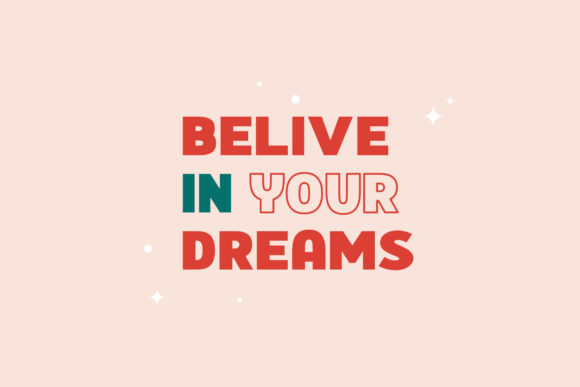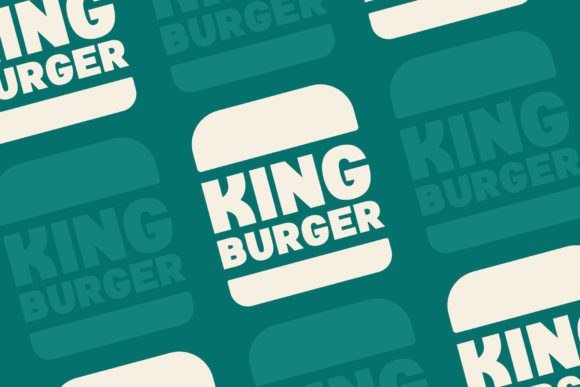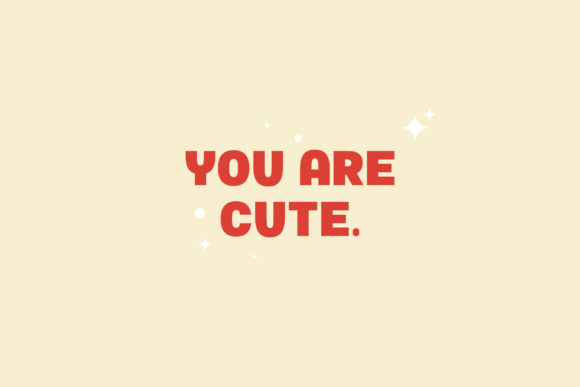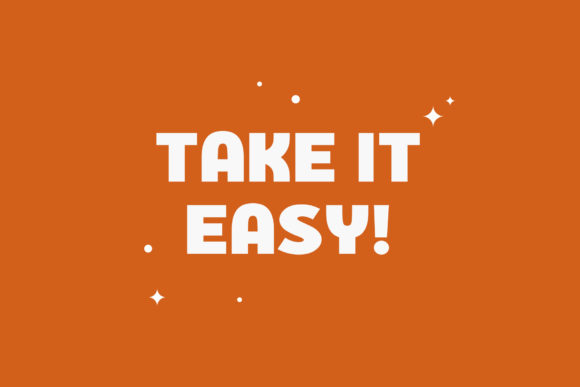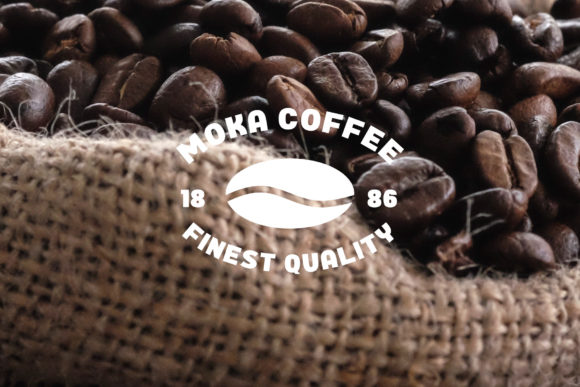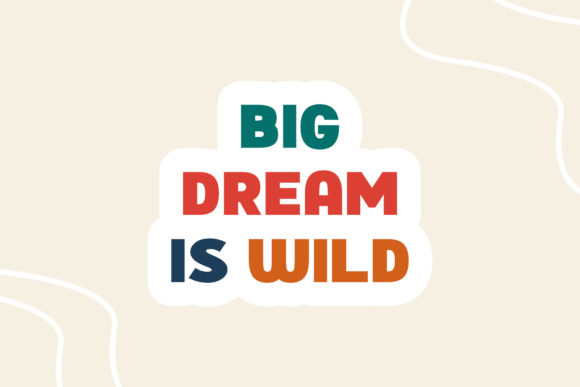
Introducing Grey Bear Font: The Ultimate Display Font for Stunning Designs
Are you tired of using the same old fonts for your designs? Look no further! Grey Bear Font is here to revolutionize your typography game. This thick lettered display font is perfect for creating eye-catching posters, flyers, and prints that will leave a lasting impression. In this article, we’ll dive into the world of Grey Bear Font and explore its endless possibilities for designers and crafters.
What is Grey Bear Font?
Grey Bear Font is a bold and sturdy display font that’s designed to make a statement. Its thick letters and clean lines make it perfect for headlines, titles, and short phrases. This font is ideal for designers who want to add a touch of ruggedness and sophistication to their designs. Whether you’re creating a poster, flyer, or print, Grey Bear Font is sure to turn heads.
Key Features of Grey Bear Font
- Thick lettered design: Grey Bear Font features thick letters that are perfect for creating bold and eye-catching designs.
- Clean lines: The font’s clean lines ensure that your designs look crisp and professional.
- Display font: Grey Bear Font is designed specifically for display purposes, making it perfect for headlines, titles, and short phrases.
- Versatile: This font can be used for a wide range of designs, from posters and flyers to prints and more.
Why Use Grey Bear Font?
So, why should you use Grey Bear Font for your designs? Here are just a few reasons:
- Add a touch of sophistication: Grey Bear Font adds a touch of ruggedness and sophistication to your designs, making them stand out from the crowd.
- Perfect for bold designs: If you want to create bold and eye-catching designs, Grey Bear Font is the perfect choice.
- Easy to read: Despite its thick letters, Grey Bear Font is easy to read, making it perfect for designs that require a clear message.
- Endless possibilities: With Grey Bear Font, the possibilities are endless. Use it for posters, flyers, prints, and more to create stunning designs.
How to Use Grey Bear Font
Using Grey Bear Font is easy! Here are a few tips to get you started:
- Pair it with other fonts: Grey Bear Font pairs well with other fonts, so don’t be afraid to experiment with different combinations.
- Use it for headlines: Grey Bear Font is perfect for headlines and titles, so use it to add a touch of sophistication to your designs.
- Experiment with colors: Grey Bear Font looks great in a variety of colors, so experiment with different colors to find the perfect one for your design.
- Use it for prints: Grey Bear Font is perfect for prints, so use it for business cards, brochures, and more.
In conclusion, Grey Bear Font is a game-changer for designers and crafters. Its thick lettered design and clean lines make it perfect for creating stunning posters, flyers, and prints. With its endless possibilities and versatility, Grey Bear Font is a must-have for any designer looking to take their typography game to the next level. So why wait? Download Grey Bear Font today and start creating stunning designs that will leave a lasting impression.